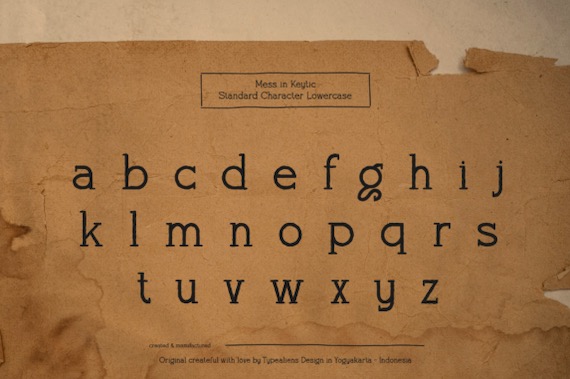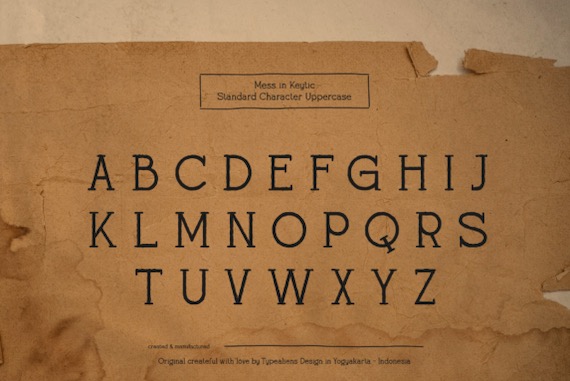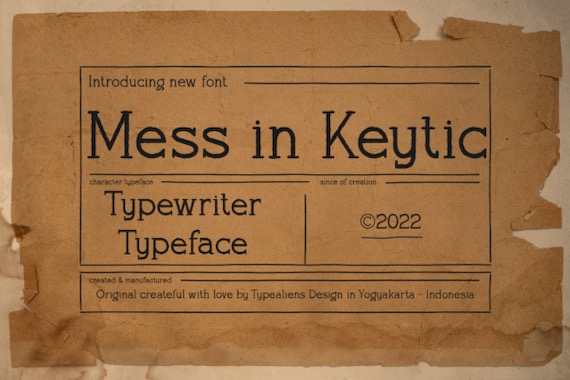
Now, proudly introduce to Mess In Keytic Font. This is a retro serif font that was created and shared by Typealiens. It’s inspired by typewriter characters and it can be used to create text or paragraphs but is also great for creating titles on the cover of a magazine or headlines in a newspaper.
Mess in Keytic Serif Font